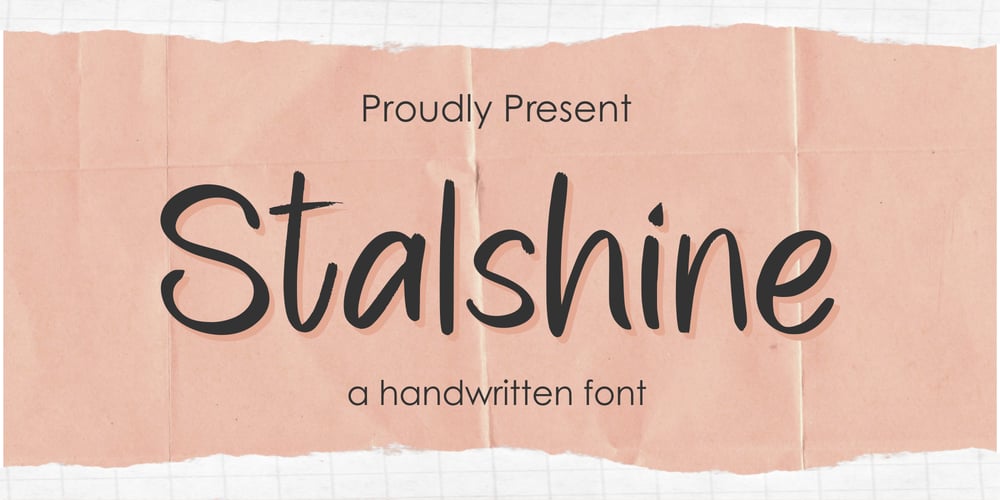
Stalshine Font Family was designed by Suhery Anto, Odies Dwi Yudhistira and published by Qwrtype Foundry. Stalshine contains 1 styles and family package options. Proudly Present, Stalshine is a Handwritten FontStalshine is perfect for product packaging, branding project, megazine, social media, wedding, or just used to express words above the background.Stalshine also has multilingual support.Enjoy the font, feel free to comment or feedback, send me PM or email.